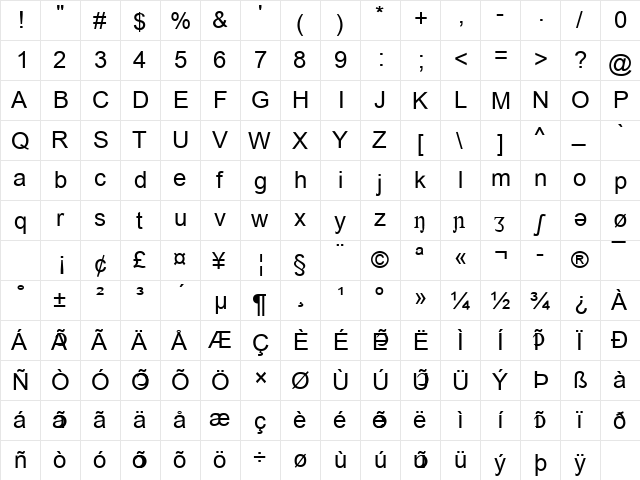
Phone Normal Font Preview
Phone Normal
Phone Normal Font Details
Design Context for Phone Typeface
Phone is a composed and adaptable typeface that performs quietly and consistently across a wide range of design contexts.